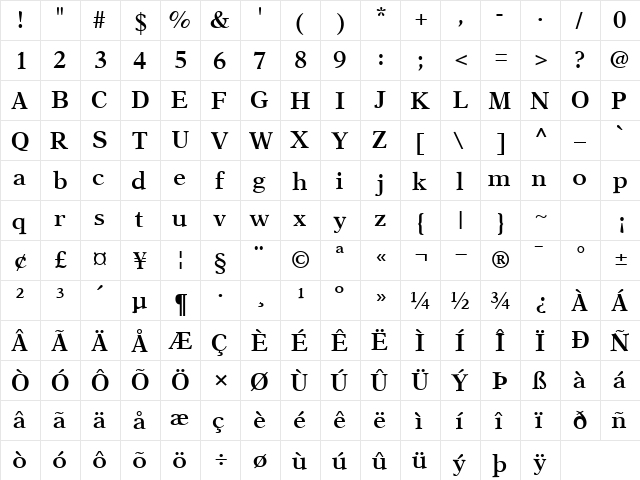
OrchidSSK Bold
Design Context for OrchidSSK Typeface
OrchidSSK is a composed and adaptable typeface that performs quietly and consistently across a wide range of design contexts. The heavy weight commands attention and anchors typographic hierarchies.
Pro Tip: Use OrchidSSK in both headline and body roles to test its range before committing to a single application.